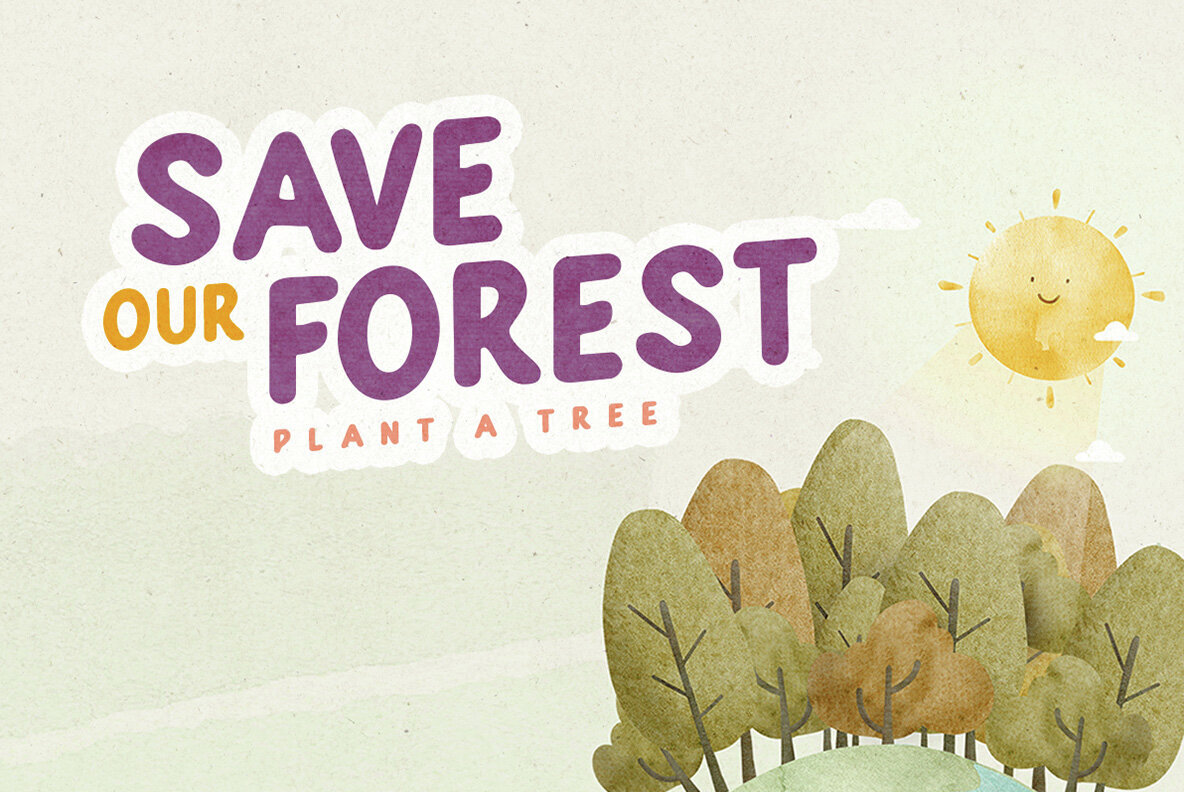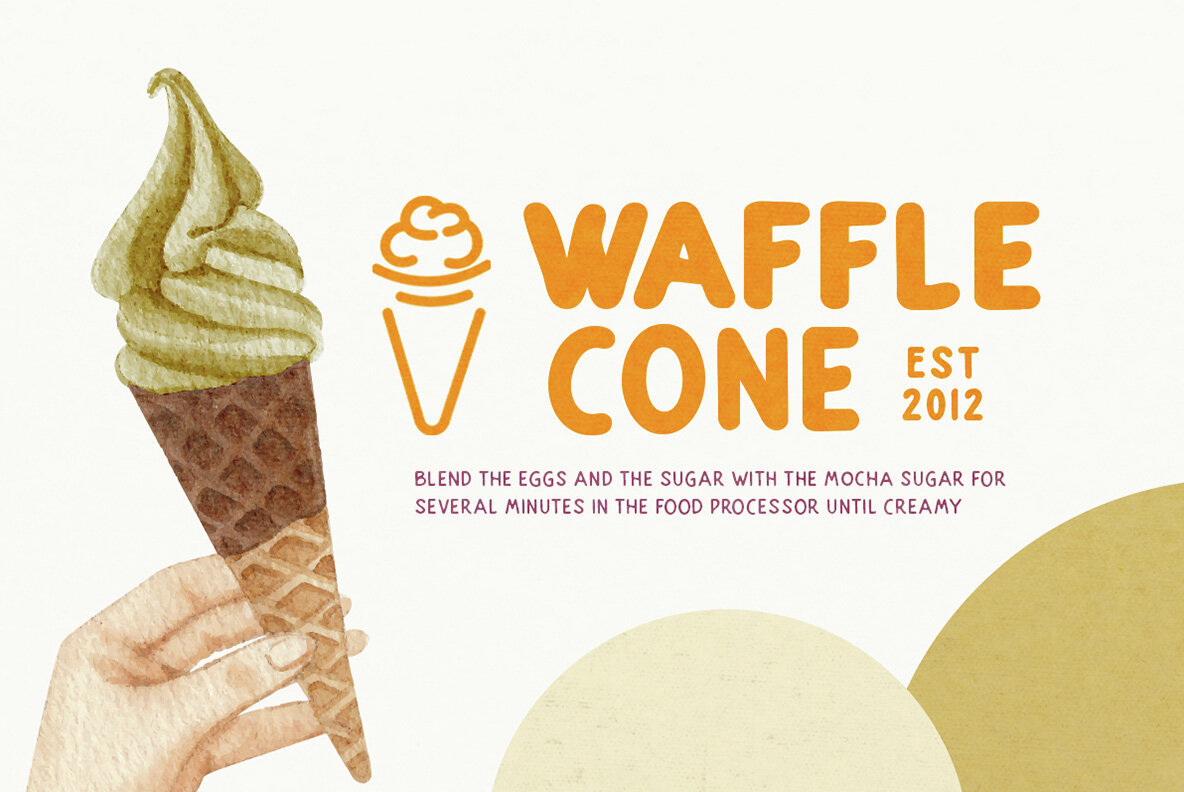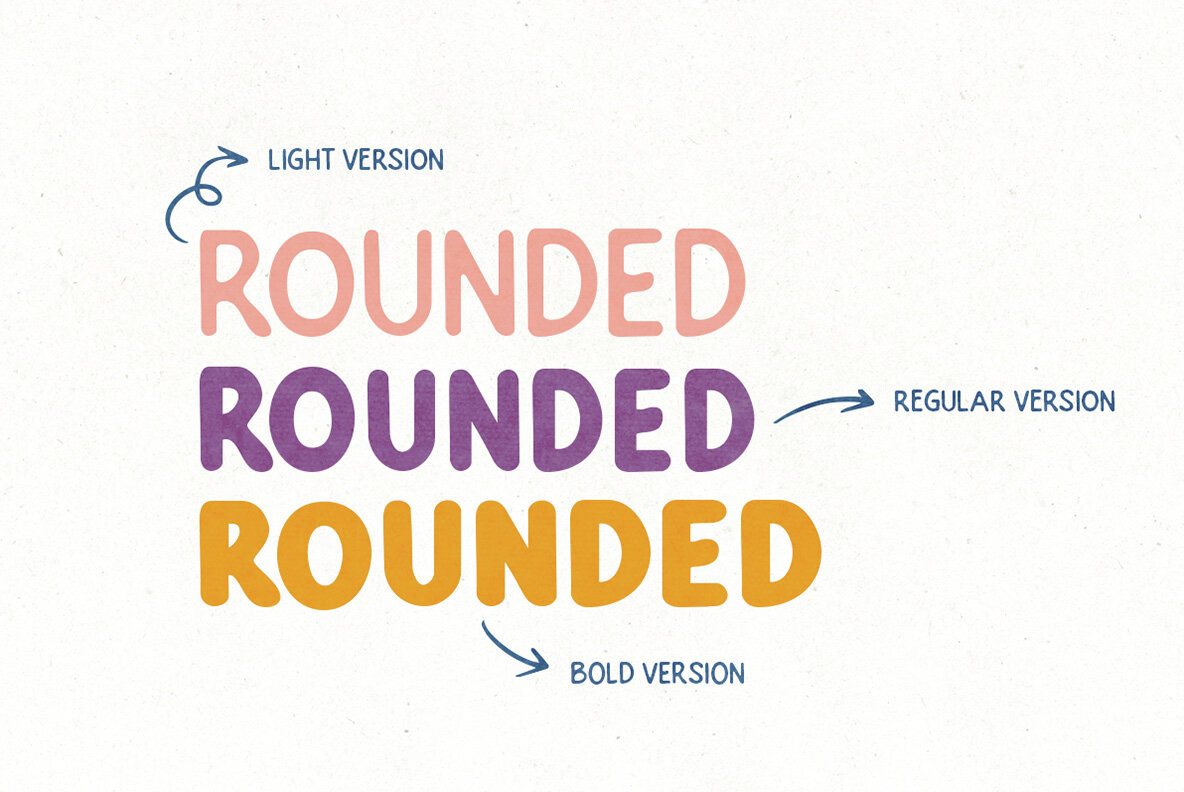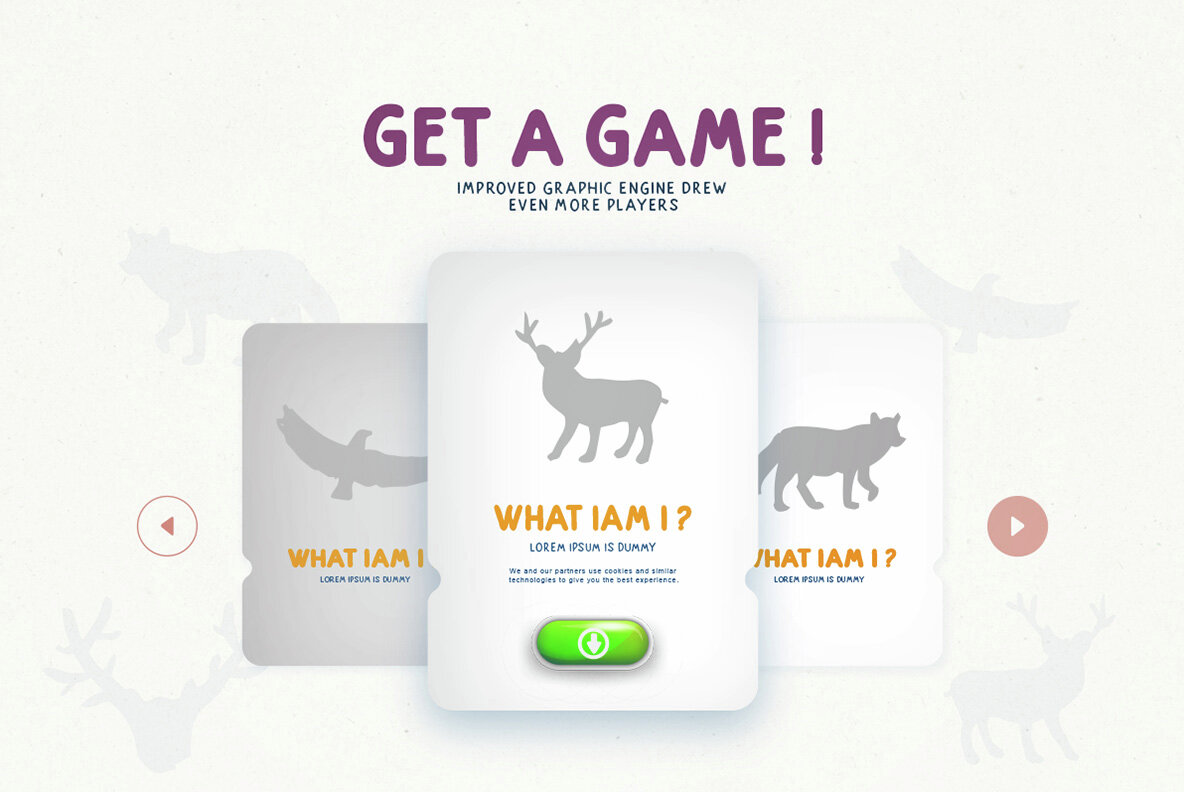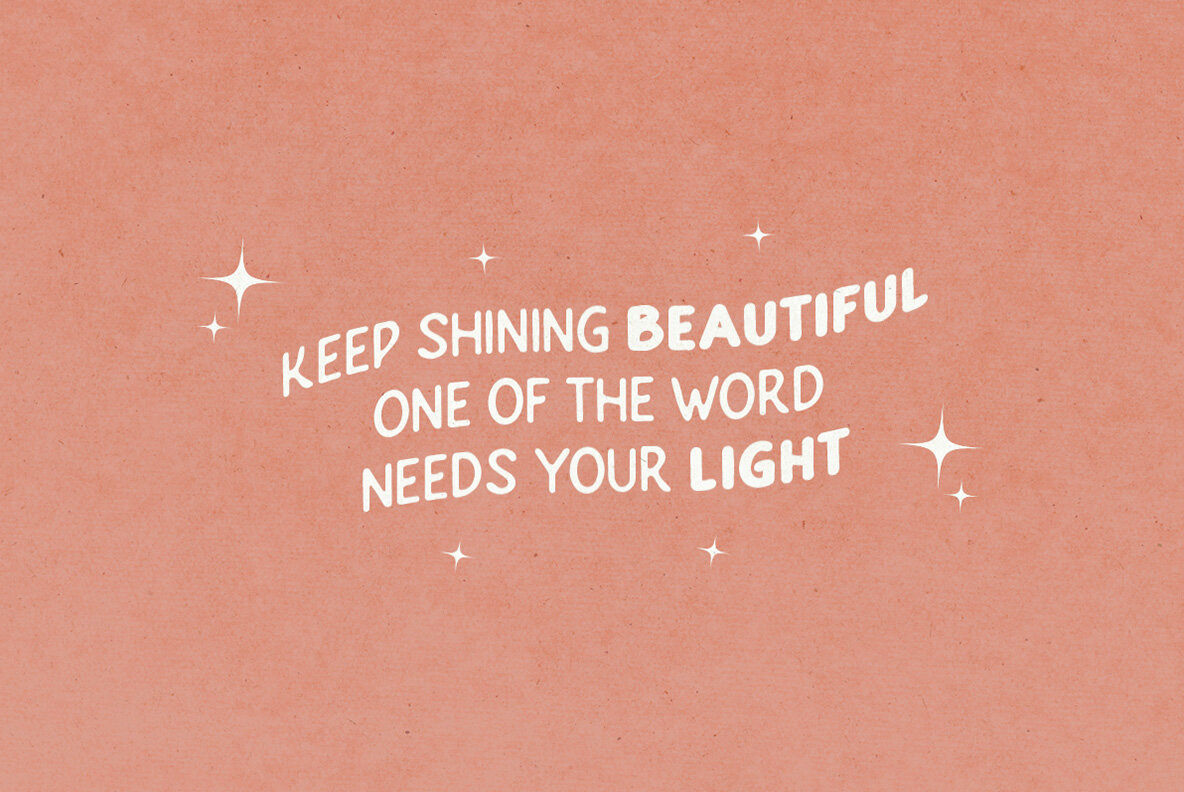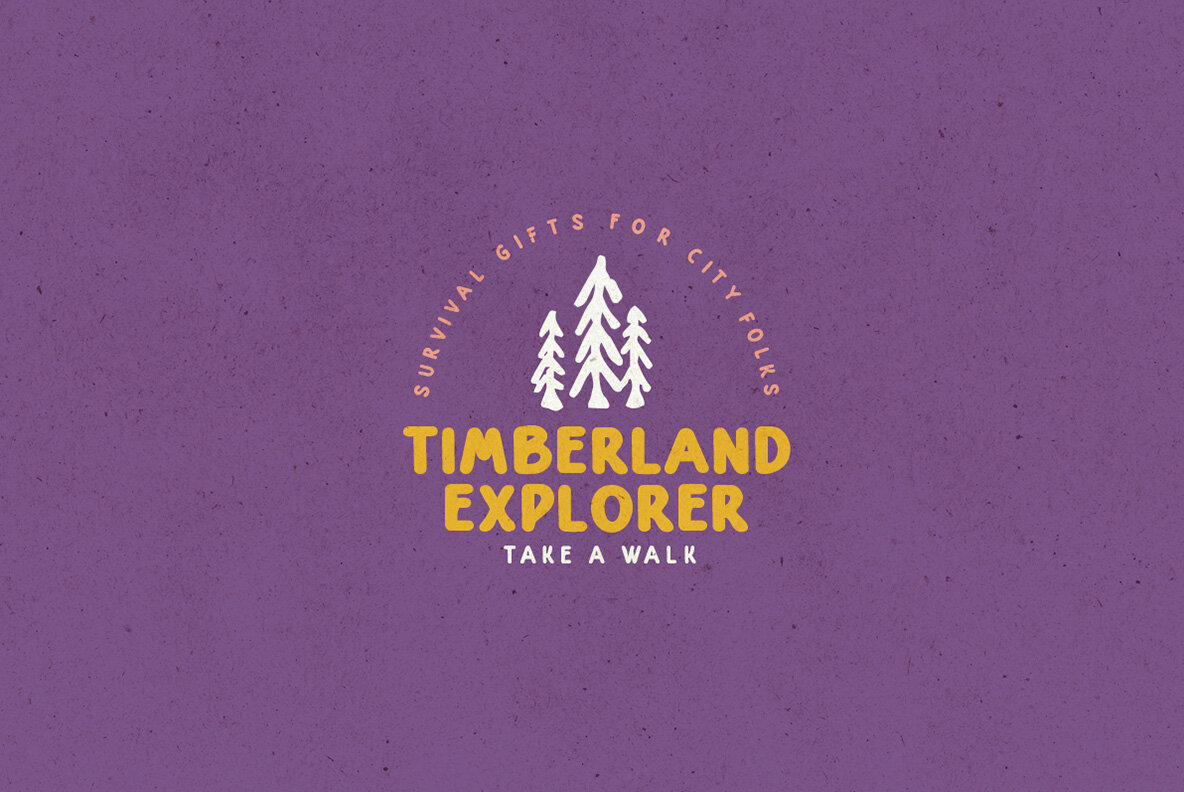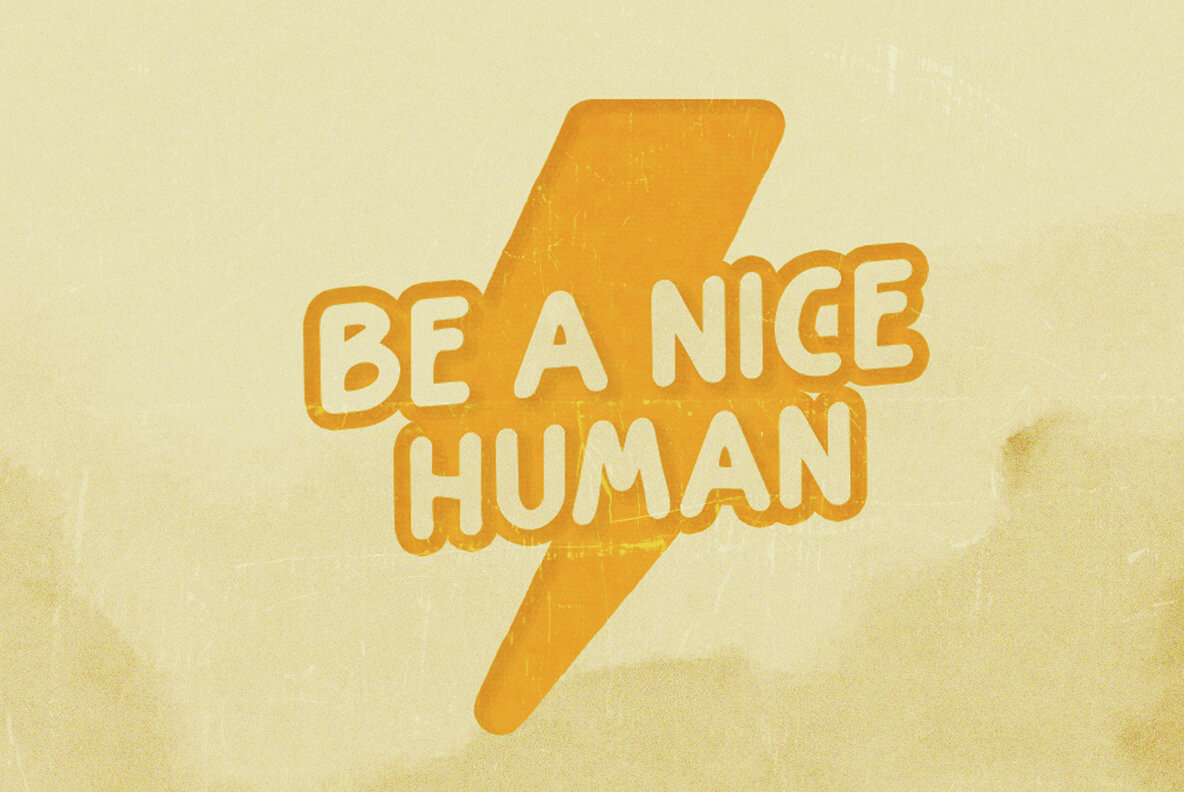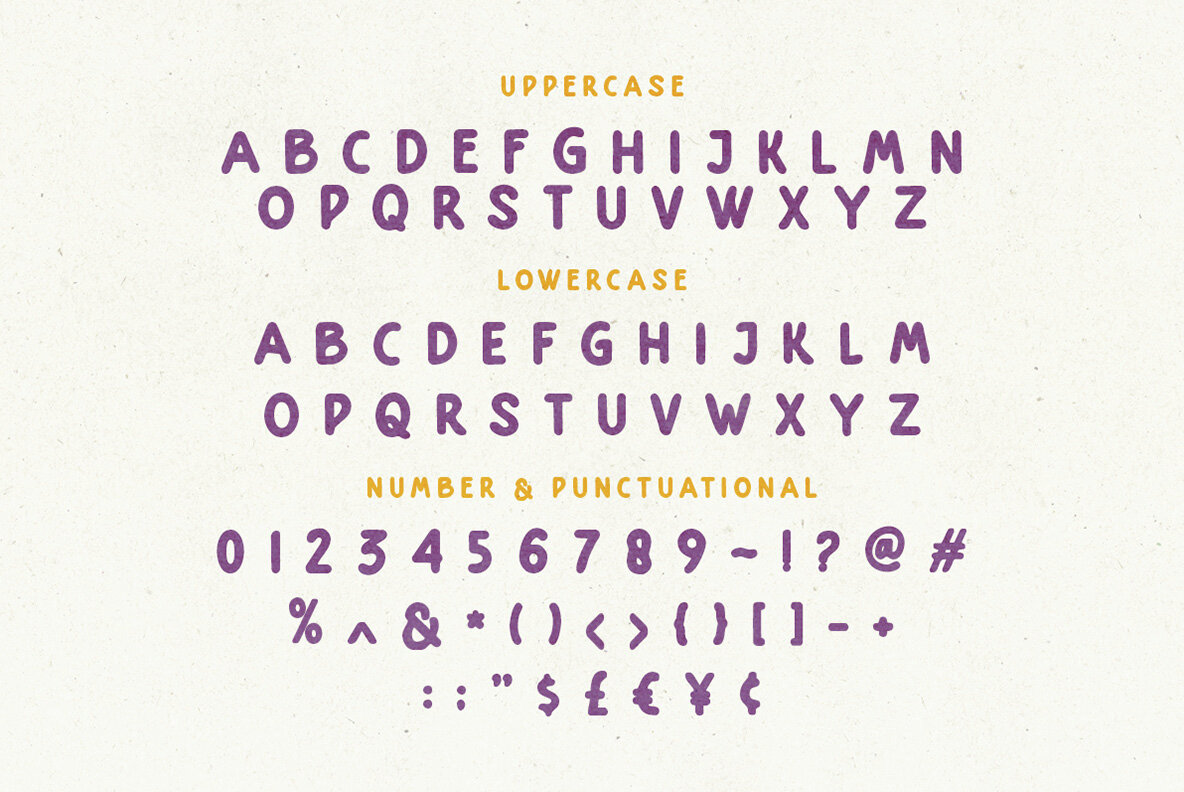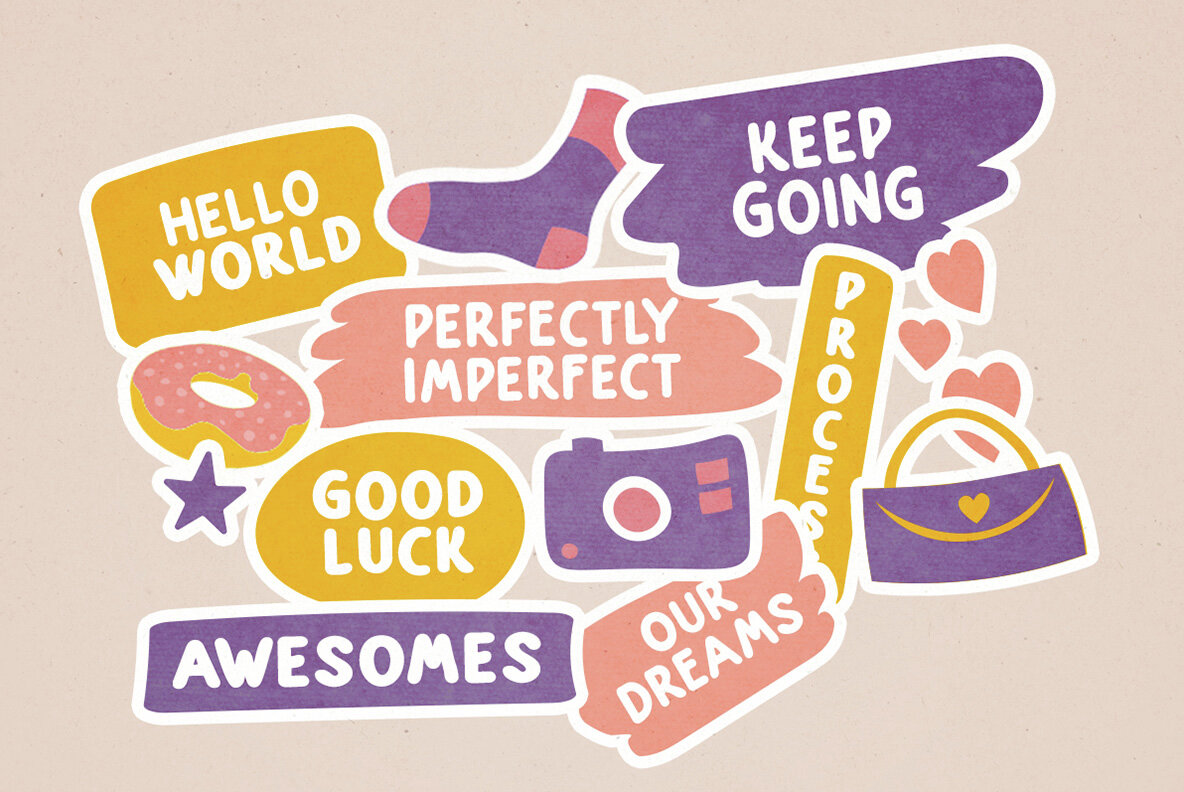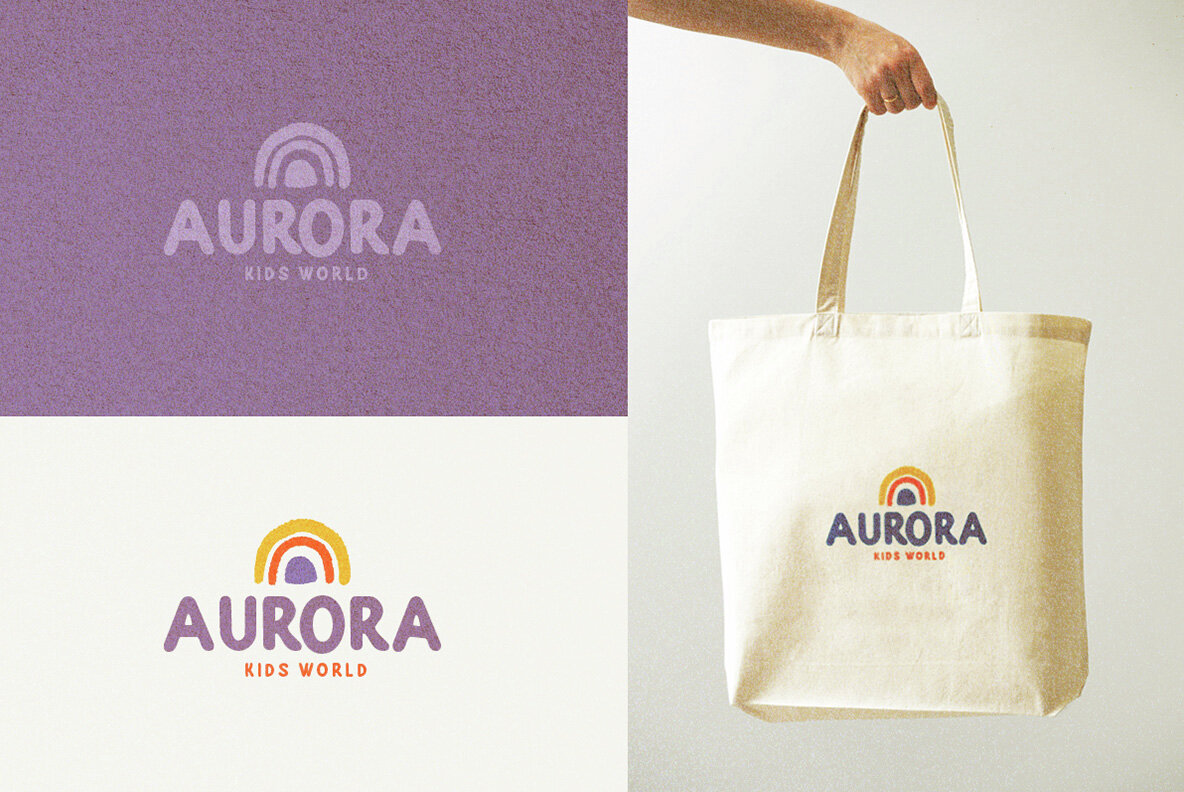
Hello Sweety Font
Hello Sweety is a cute and rounded all caps sans serif font family. This fonts is so friendly and fun that can be use for any purpose, such as as logo, brand and quotes. With difference uppercase and lowercase that you can combine to get more stunning designs. Hello Sweety also support multi language!